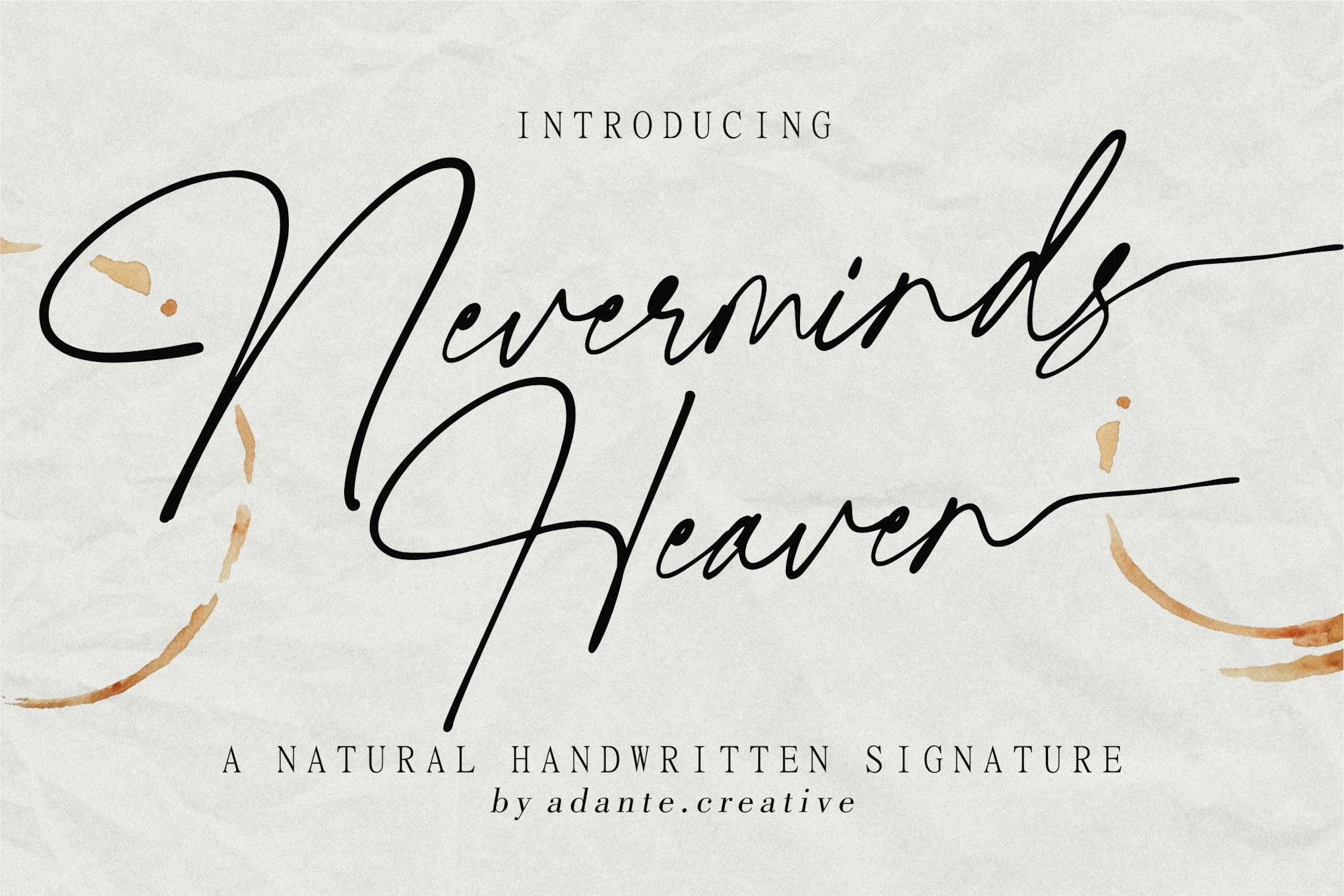
AC - Neverminds Heaven Font
Neverminds Heaven is a Natural Handwritten Signature font, fonts in their wedding invitations and stationery to create a personalized and intimate atmosphere. This adds a romantic touch to the invitations and reflects the couple's individuality. This font includes OTF, TTF & Woff Software that you can use to use this font: Adobe Illustrator, Adobe Photoshop, Microsoft Word, Corel Draw, And Inkscape, etc.